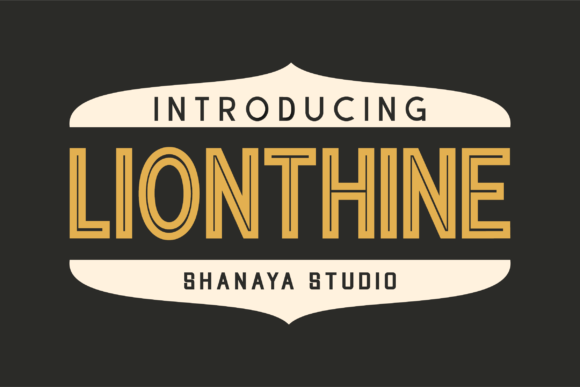
Embark on a typographic adventure with Lionthine, a sans serif font family that exudes elegance and sophistication. Step into a world of boundless creativity, where your designs will blossom with an air of timeless beauty. Immerse yourself in the world of Lionthine, a font family that speaks to the heart.
Lionthine's graceful curves and refined strokes dance across the page, captivating your audience with its undeniable charm. Its timeless design transcends trends, making it a perfect choice for any project seeking a touch of classic elegance. Whether you're crafting logos, branding materials, invitations, or social media posts, Lionthine adds a touch of luxury that elevates your designs to new heights.
Experience the versatility of Lionthine, a font family that adapts seamlessly to your creative vision. Its carefully crafted characters dance effortlessly between formal and casual settings, making it an ideal choice for a wide range of projects. From elegant wedding invitations to playful marketing campaigns, Lionthine effortlessly captures the essence of your message, adding a touch of sophistication and class.
Unleash your creativity with Lionthine, a font family that sparks imagination. Its carefully crafted glyphs invite you to explore new design possibilities, transforming ordinary words into captivating works of art. Let your imagination run wild as you experiment with different combinations of weights and styles, creating typographic masterpieces that leave a lasting impression.
Indulge in the beauty of Lionthine, a font family that evokes emotions and captivates hearts. Its enchanting characters possess a magical ability to transport your audience to a world of elegance and grace. Each letterform is imbued with a sense of artistry, drawing the eye and creating a visual symphony that resonates with your audience.